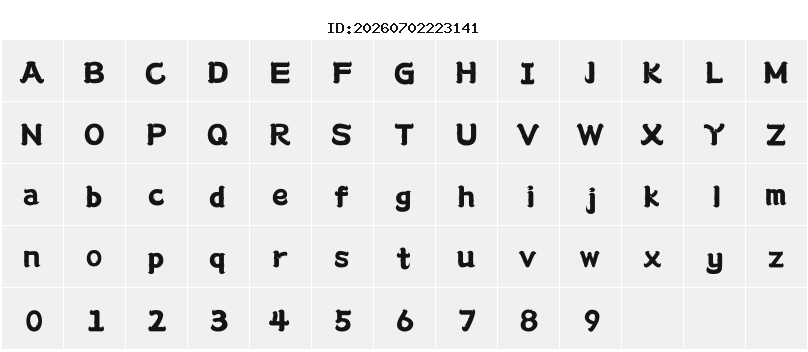
283-上首舞狮体 Preview
• Font Name: 283-上首舞狮体
• Full Font Name: 283-上首舞狮体
• Manufacturer: 上首造字
About 283-上首舞狮体.ttf
283-上首舞狮体.ttf is a modern, elegant sans-serif font designed for ultimate readability and visual harmony. Perfect for branding, headlines, web design, and print materials.